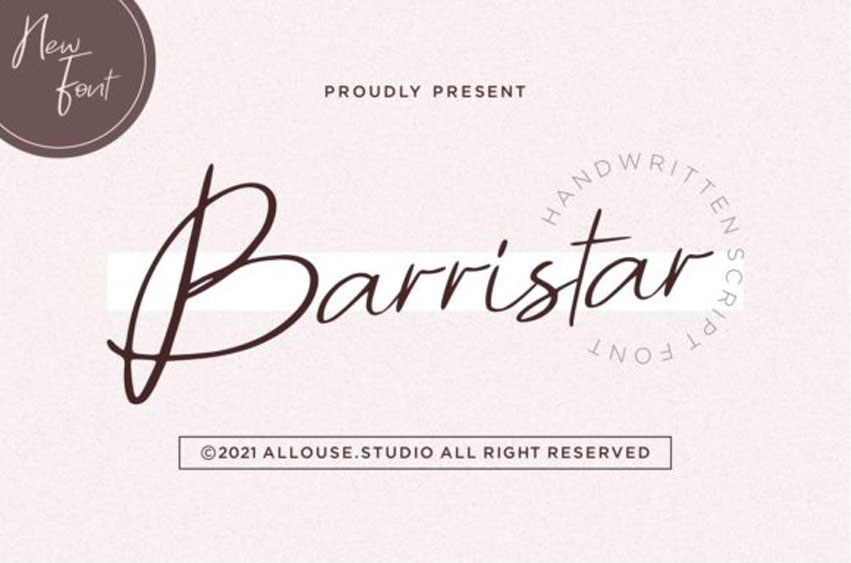
Barristar Font is a stylish and delicate script font.
It has a clean, thin, and smooth vibe, and it will be a hit for any design that you want to add it to.